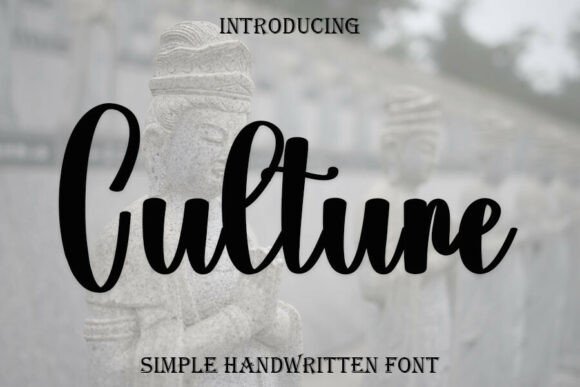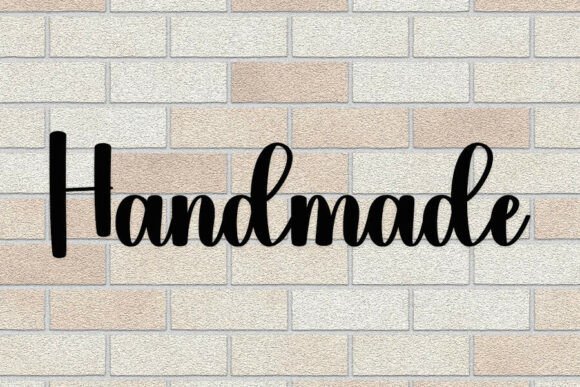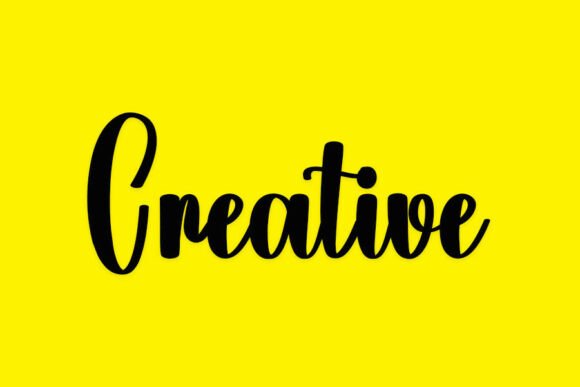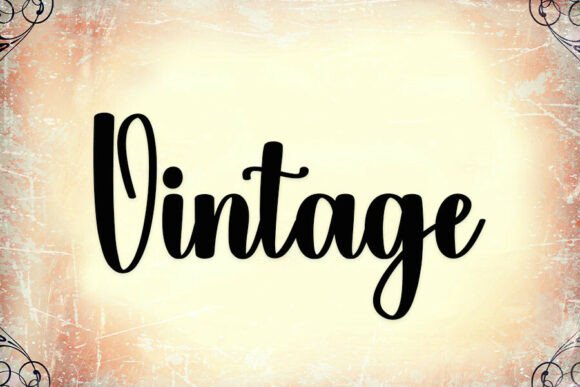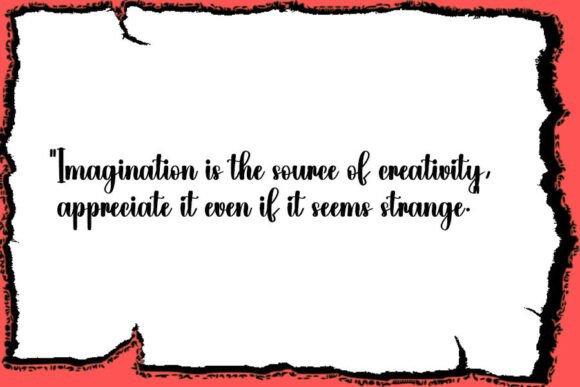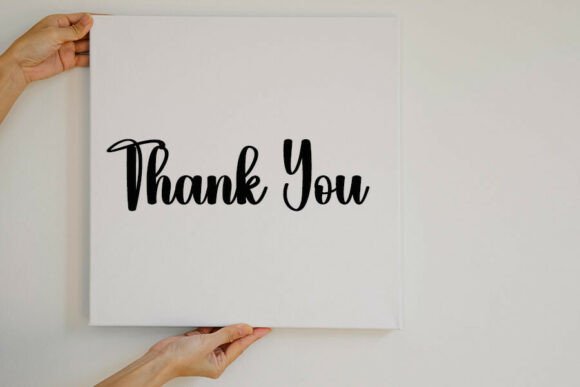
Get Ready to Deck the Halls with Culture Font
As the holiday season approaches, designers everywhere are scrambling to find the perfect font to capture the magic of the season. And then, it hits you – the perfect moment of inspiration. You’re browsing through your favorite font repository, and suddenly, you stumble upon a font that makes your heart skip a beat. For many designers, that moment of inspiration came when they discovered Culture Font.
Culture Font is a festive and merry typeface designed to bring a touch of enchantment to your holiday designs. With its decorative elements and whimsical flair, this font is perfect for greeting cards, gift tags, and holiday-themed projects. Whether you’re a seasoned designer or a beginner, Culture Font is a valuable addition to your typography toolkit.
With Culture Font, you’ll be able to add a cheerful and nostalgic ambiance to your words, making your designs truly shine. And with its PUA encoding, accessing all the amazing glyphs and ligatures is a breeze.
Culture Font Key Features
- Unique Characteristics: Culture Font features a unique blend of modern and traditional design elements, resulting in a distinctive and recognizable visual identity that sets it apart from other fonts.
Designer Review: Culture Font
As a designer, I was excited to try out Culture Font, a typeface that promises to capture the essence of different cultures from around the world. Here’s my honest review.
- Unique cultural inspirations: Culture Font is indeed inspired by various cultures, and it shows in its distinct letterforms and typography.
- Global appeal: The font is versatile and can be used in a wide range of projects, from branding to editorial design.
- Legibility: Despite its unique features, Culture Font is still highly legible, making it suitable for body text and headings.
- Limited font sizes: Culture Font may not be the best choice for very large or very small font sizes, as its unique features can become lost or distorted.
- Over-reliance on cultural cues: While the cultural inspirations are interesting, they can sometimes feel forced or gimmicky, taking away from the overall design.
Culture Font is a bold and eye-catching typeface that can add a unique touch to your designs. However, it may not be the best choice for every project. With careful consideration and usage, it can be a valuable addition to your design toolkit.
Culture Font is ideal for use in branding, marketing materials, and social media graphics. Its versatility and distinctive style make it a great choice for creating eye-catching and memorable designs.